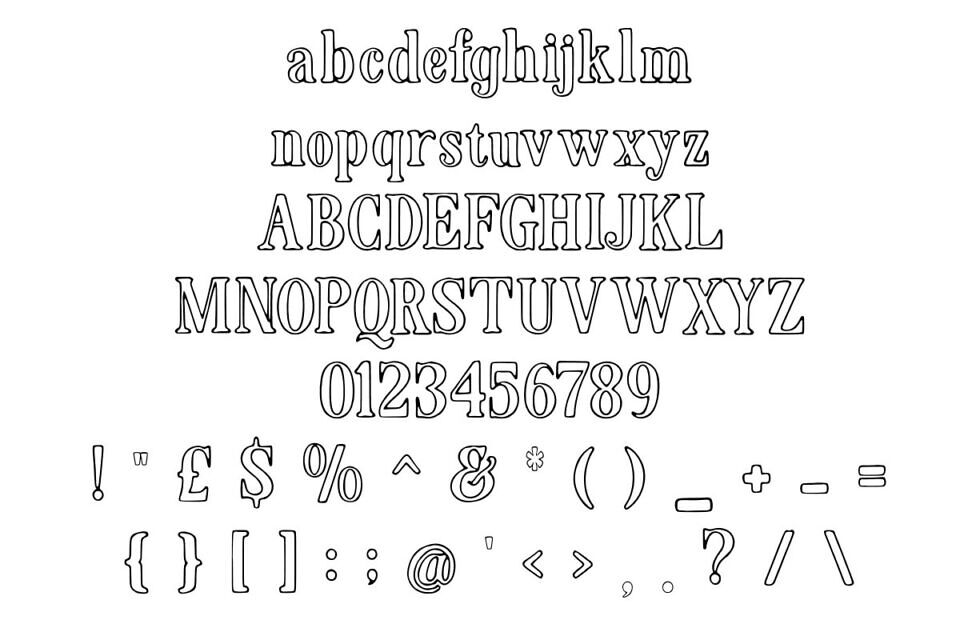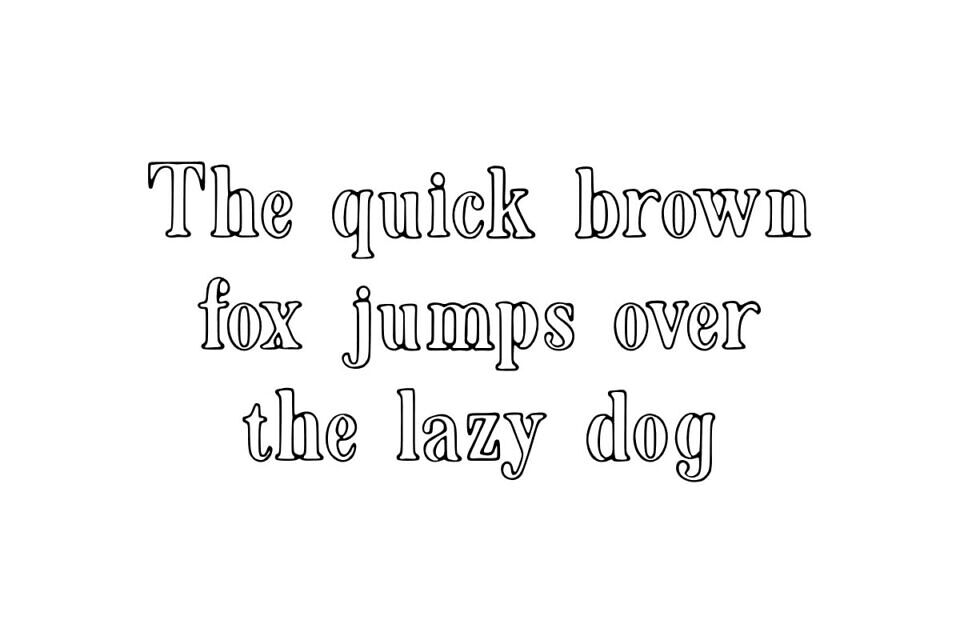
Color Me Happy is the ultimate playful outline font, designed for creativity and fun! Great for making your own coloring pages! Whether you want to fill it with rainbow gradients, watercolor effects, or just let it shine as a charming doodle-style typeface, this font is made for artistic expression.
Perfectly imperfect, its slightly wobbly edges and whimsical charm give it a hand-drawn personality that’s impossible to resist. Get ready to unleash your inner child—because this font is practically waving a coloring pencil at you!
Perfect for:
- Coloring pages & activity books
- Whimsical book covers
- Creative bullet journals
- Handmade greeting cards
- Fun branding & packaging